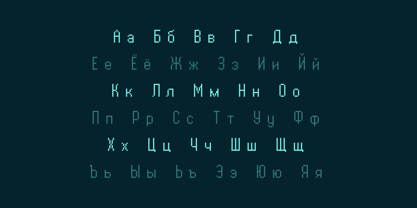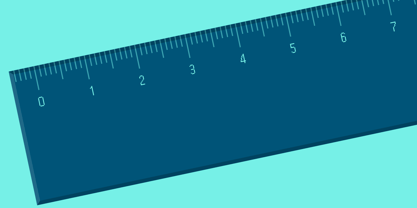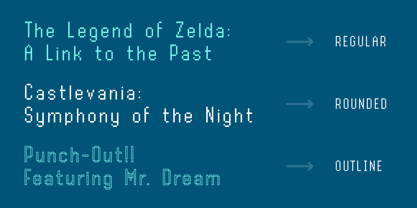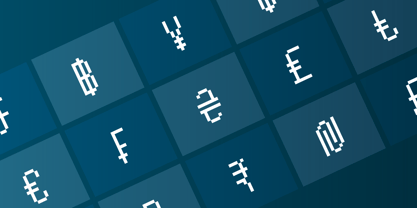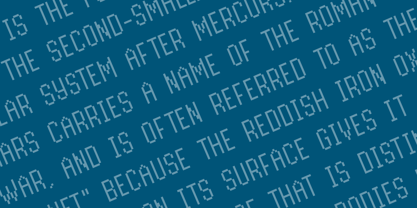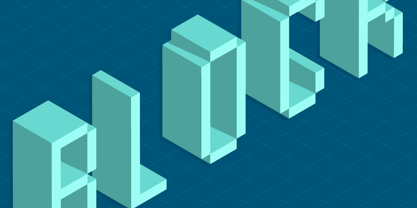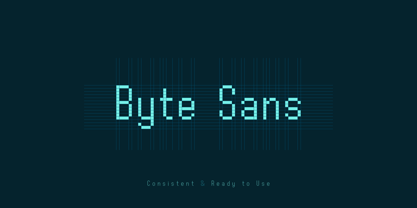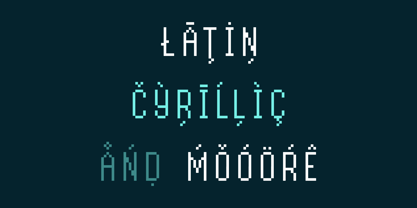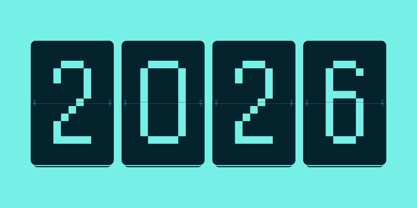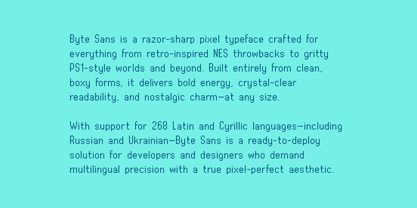
Byte Sans
Die Schriftfamilie Byte Sans wurde von Alper Çakıcı entworfen und von AlperCakici veröffentlicht. Byte Sans enthält 8 Stile und Familienpaketoptionen.
Byte Sans is a tall, grid-built pixel typeface crafted for games, UI, and retro-inspired design. Drawing from the sharp charm of 8-bit, 16-bit, and PS1-era visuals, it's perfect for splash screens, scoreboards, dialogue boxes, menus, and in-game interfaces. With 8 styles — Regular, Inline, Rounded, Outline, Outline Rounded, Inline Rounded, Shadow, and Shadow Rounded — Byte Sans gives you full creative flexibility across genres and moods. Built with pixel-perfect geometry, Byte Sans ensures clarity at every size and supports 268 Latin + Cyrillic languages, including Russian, Ukrainian, Turkish, and more.